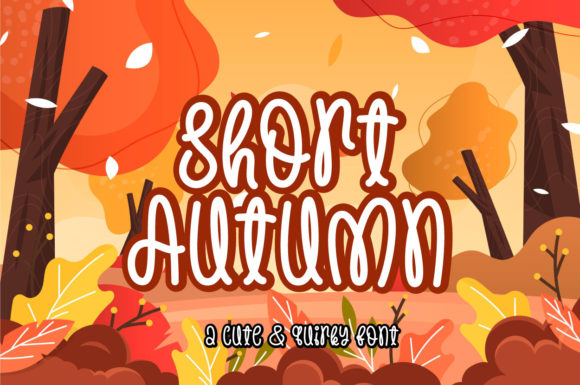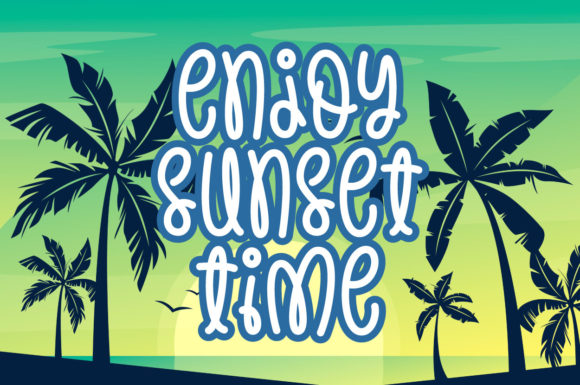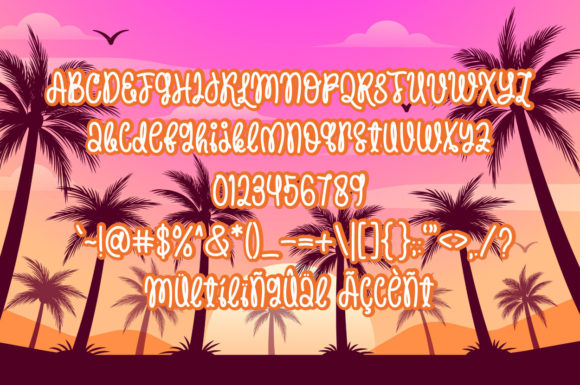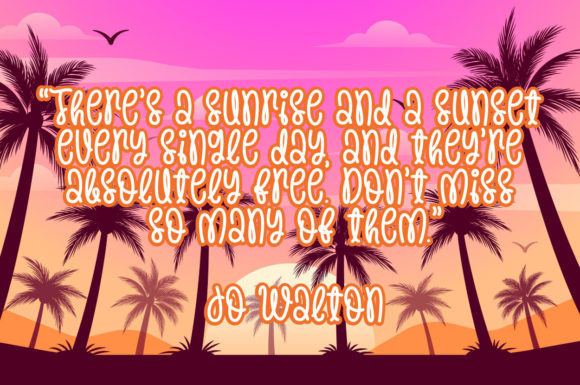
Short Autumn Font
About Short Autumn Font
Short Autumn is a quirky handwritten font. Its friendly feel makes this font incredibly versatile, fitting a wide range of contexts. It looks stunning on thank you cards, quotes, greeting cards, logos, business cards, and other designs. Add it to your creative ideas, and notice how it makes them stand out!